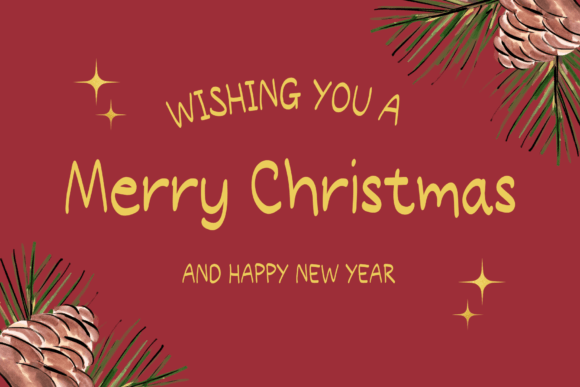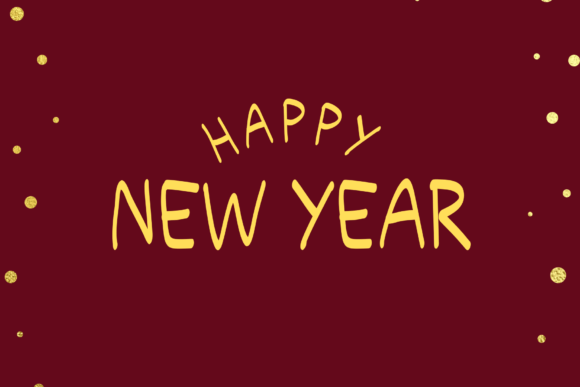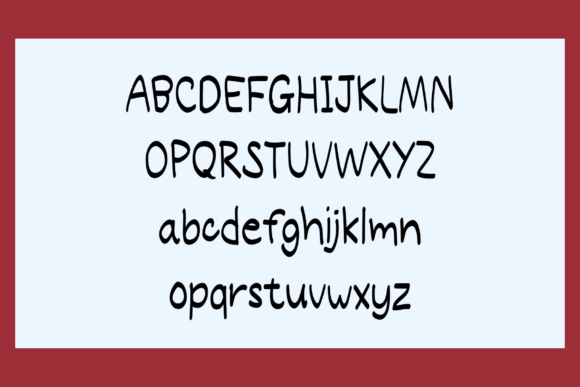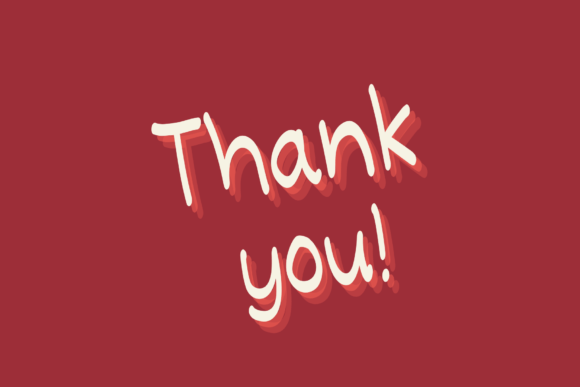
Introducing Christmas Light Font: Add a Festive Touch to Your Designs
Are you looking for a font that can add a sweet and friendly touch to your designs? Look no further than Christmas Light Font, a handwritten display font that’s perfect for crafts, digital design, and more. In this article, we’ll explore the features and benefits of Christmas Light Font, and show you how to make the most of this versatile and fun font.
What is Christmas Light Font?
Christmas Light Font is a beautiful, handwritten display font that’s designed to bring a touch of festivity and fun to your designs. With its cute and playful style, this font is ideal for a wide range of projects, from crafts and digital design to wedding invitations, cards, and more.
Whether you’re a designer, crafter, or teacher, Christmas Light Font is a great addition to your font collection. Its friendly and approachable style makes it perfect for use in school, and its versatility means it can be used for a wide range of projects, from comic books and online games to love shirts and movie titles.
Key Features of Christmas Light Font
So what makes Christmas Light Font so special? Here are just a few of its key features:
• Handwritten style: Christmas Light Font has a beautiful, handwritten style that’s perfect for adding a personal touch to your designs.
• Cute and fun: This font is designed to be fun and playful, making it perfect for projects that need a lighthearted touch.
• Versatile: Christmas Light Font can be used for a wide range of projects, from crafts and digital design to wedding invitations and more.
• Easy to read: Despite its playful style, Christmas Light Font is easy to read, making it perfect for use in titles, headings, and other design elements.
Uses for Christmas Light Font
So what can you use Christmas Light Font for? The possibilities are endless! Here are just a few ideas to get you started:
• Crafts: Christmas Light Font is perfect for use in crafts, such as scrapbooking, card making, and more.
• Digital design: This font is great for use in digital design, including social media graphics, blog posts, and more.
• Wedding invitations: Add a touch of festivity and fun to your wedding invitations with Christmas Light Font.
• Cards: This font is perfect for use in holiday cards, birthday cards, and more.
• Comic books and online games: Christmas Light Font has a playful style that’s perfect for use in comic books and online games.
• Love shirts and posters: This font is great for use in love shirts, posters, and other fun design projects.
• Movie titles: Add a touch of festivity and fun to your movie titles with Christmas Light Font.
Tips for Using Christmas Light Font
Here are a few tips for getting the most out of Christmas Light Font:
• Use it sparingly: While Christmas Light Font is fun and playful, it can be overwhelming if used too much. Use it sparingly to add a touch of festivity to your designs.
• Pair it with other fonts: Christmas Light Font pairs well with other fonts, such as bold sans-serif fonts or elegant script fonts.
• Experiment with colors: This font looks great in a range of colors, from bright and bold to pastel and soft.
Christmas Light Font is a sweet and friendly handwritten display font that’s perfect for adding a touch of festivity and fun to your designs. With its cute and playful style, this font is ideal for a wide range of projects, from crafts and digital design to wedding invitations and more. Whether you’re a designer, crafter, or teacher, Christmas Light Font is a great addition to your font collection. So why not give it a try and see what festive and fun designs you can create?